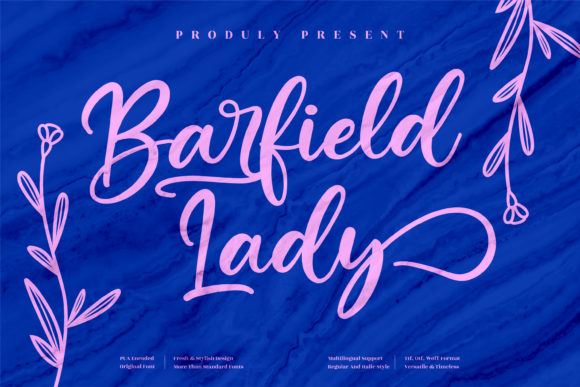
Introducing Barfield Lady Font, a captivating script font that will infuse your designs with a touch of elegance and charm. Step into a world of enchanting aesthetics as you explore the boundless creative possibilities of this versatile font.
Crafted with meticulous attention to detail by the talented Perspectype, Barfield Lady exudes a sweet and graceful personality that will leave you spellbound. Its alluring curves and flowing lines dance harmoniously on the page, evoking a sense of timeless beauty.
With Barfield Lady, you hold the key to unlocking a treasure trove of creative expression. Whether you're crafting website articles, designing social media posts, or creating eye-catching branding materials, this font will elevate your projects to new heights of sophistication.
Barfield Lady's PUA encoding opens up a realm of possibilities, granting you effortless access to a symphony of glyphs and swashes. Unleash your imagination and let your designs soar as you seamlessly incorporate these embellishments into your work.
Immerse yourself in the ravishing style of Barfield Lady and watch as your designs blossom into masterpieces. Its enchanting allure will captivate your audience, leaving them spellbound by the sheer beauty of your creations.
Don't resist the allure of Barfield Lady any longer. Embark on a creative journey where elegance and charm reign supreme. Embrace the magic of this extraordinary font and elevate your designs to new heights of excellence.